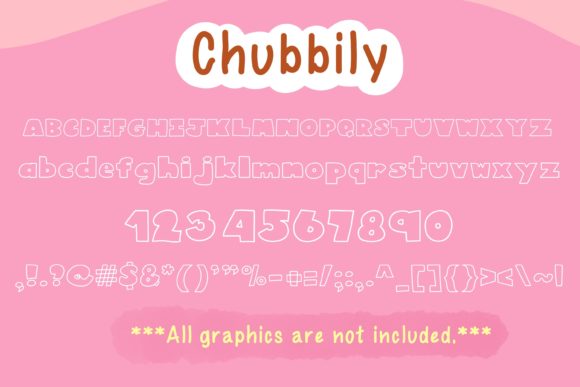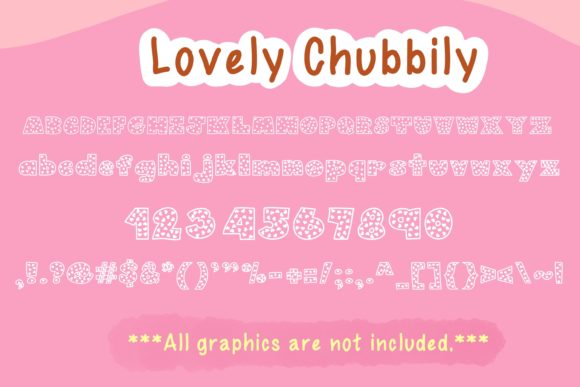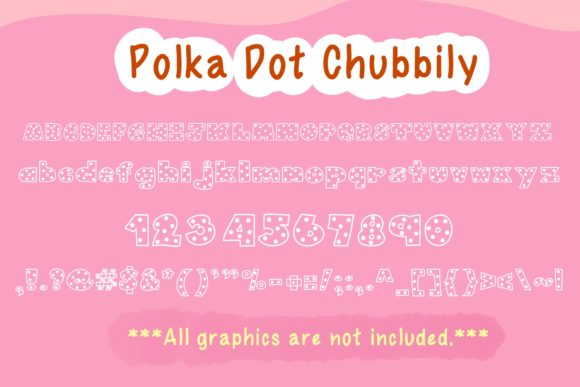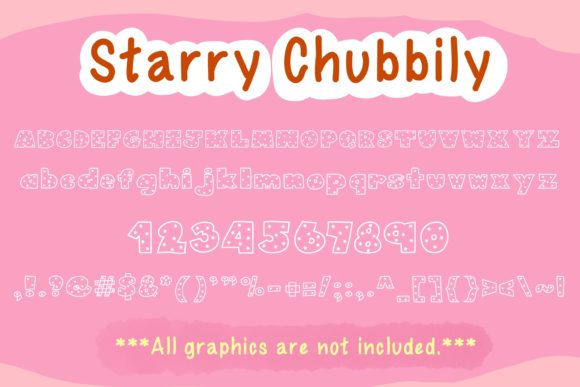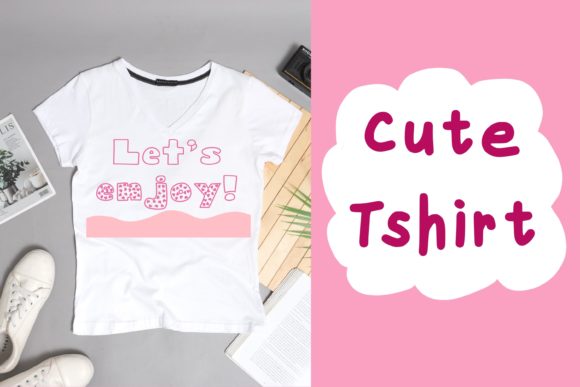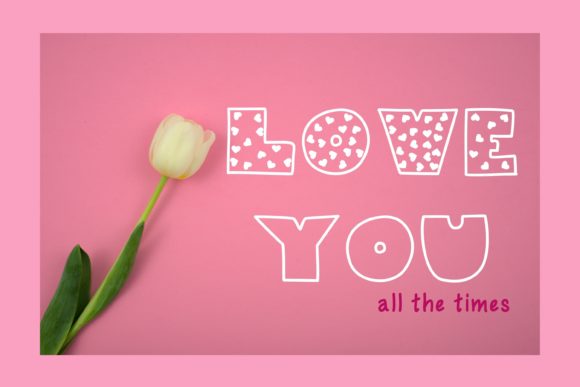
Introducing Chubbily Family Set Font: The Ultimate Choice for Cute and Playful Designs
Are you a designer or crafter looking for a font that can add a touch of sweetness and friendliness to your creations? Look no further than the Chubbily Family Set Font! This adorable display font is perfect for cartoon-related designs, children’s games, and any project that requires a lovely and playful touch.
What Makes Chubbily Family Set Font So Special?
Chubbily Family Set Font is a carefully crafted font that is designed to bring a sense of joy and whimsy to your designs. Its cute and friendly appearance makes it an ideal choice for projects that require a touch of playfulness, such as:
- Cartoon-related designs: Bring your cartoon characters to life with a font that matches their playful and fun personality.
- Children’s games: Create engaging and interactive games for kids with a font that is both fun and easy to read.
- Stationery and crafts: Add a personal touch to your DIY projects, such as handmade cards, gift tags, and scrapbooking pages.
Key Features of Chubbily Family Set Font
So, what makes Chubbily Family Set Font so unique? Here are some of its key features:
- Cute and friendly design: The font’s playful and endearing design makes it perfect for projects that require a touch of sweetness.
- Display font: Chubbily Family Set Font is a display font, making it perfect for headlines, titles, and short text.
- Multi-language support: The font supports multiple languages, making it a great choice for designers and crafters who work with international clients.
- Easily readable: Despite its playful design, the font is easy to read, making it perfect for both digital and print projects.
How to Use Chubbily Family Set Font in Your Designs
Using Chubbily Family Set Font in your designs is easy! Here are some tips to get you started:
- Pair it with other fonts: Combine Chubbily Family Set Font with other fonts to create a unique and visually appealing design.
- Experiment with colors: The font’s playful design makes it perfect for bright and bold colors.
- Add graphics and illustrations: Chubbily Family Set Font is perfect for pairing with cute graphics and illustrations.
Benefits of Using Chubbily Family Set Font
So, why should you choose Chubbily Family Set Font for your designs? Here are some benefits of using this adorable font:
- Save time: With Chubbily Family Set Font, you can create professional-looking designs in no time.
- Stand out from the crowd: The font’s unique design makes it perfect for designers and crafters who want to stand out from the crowd.
- Perfect for kids’ projects: The font’s playful design makes it perfect for projects aimed at kids.
Here are some frequently asked questions about Chubbily Family Set Font:
- Is the font suitable for body text?: Chubbily Family Set Font is a display font, making it more suitable for headlines and titles.